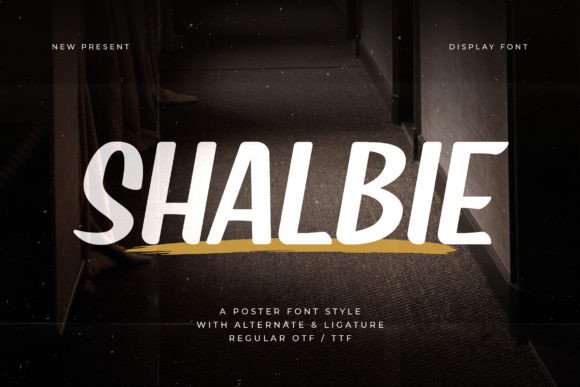
Prepare to be mesmerized by “Shalbie�, an awe-inspiring poster font that bursts onto the scene with its bold and expressive letterforms. Created by the visionary minds at TypeFactory, “Shalbie� is the embodiment of artistic flair and captivating design.
Step into a world where typography transcends the ordinary and transforms into an art form. “Shalbie� is the perfect choice for those who seek a font that commands attention and leaves a lasting impression. Its carefully crafted characters dance across the page, striking a delicate balance between audacity and elegance.
Unleash your creativity and explore the limitless possibilities that “Shalbie� offers. Craft eye-catching posters that leap off the wall, demanding attention with their striking presence. Create dynamic signage that captivates passersby, leaving them utterly enthralled. Redefine modern branding with logos and designs that exude confidence and style. With “Shalbie� as your trusted companion, your imagination knows no bounds.
“Shalbie� isn’t just a font; it’s a gateway to a world of creativity. Its versatility extends far beyond posters and signage. Weave it into your social media posts to make your words come alive, or let it shine in website designs that exude sophistication and originality. Whether it’s invitations, greeting cards, or product packaging, “Shalbie� adds an instant touch of allure and distinction.
Don’t settle for ordinary fonts that fade into the background. Embrace “Shalbie�, the font that demands attention and inspires awe. Its bold and expressive letterforms will elevate your designs to new heights, leaving your audience captivated and eager for more.